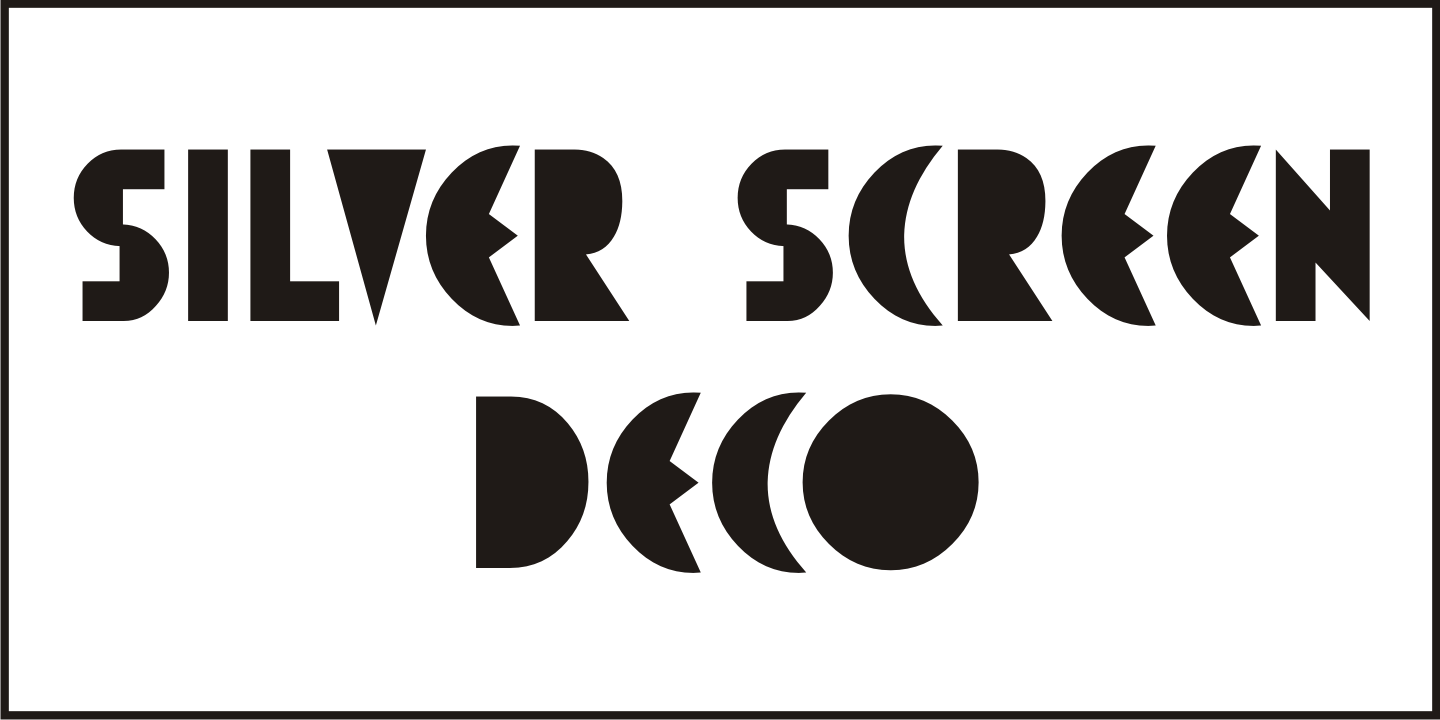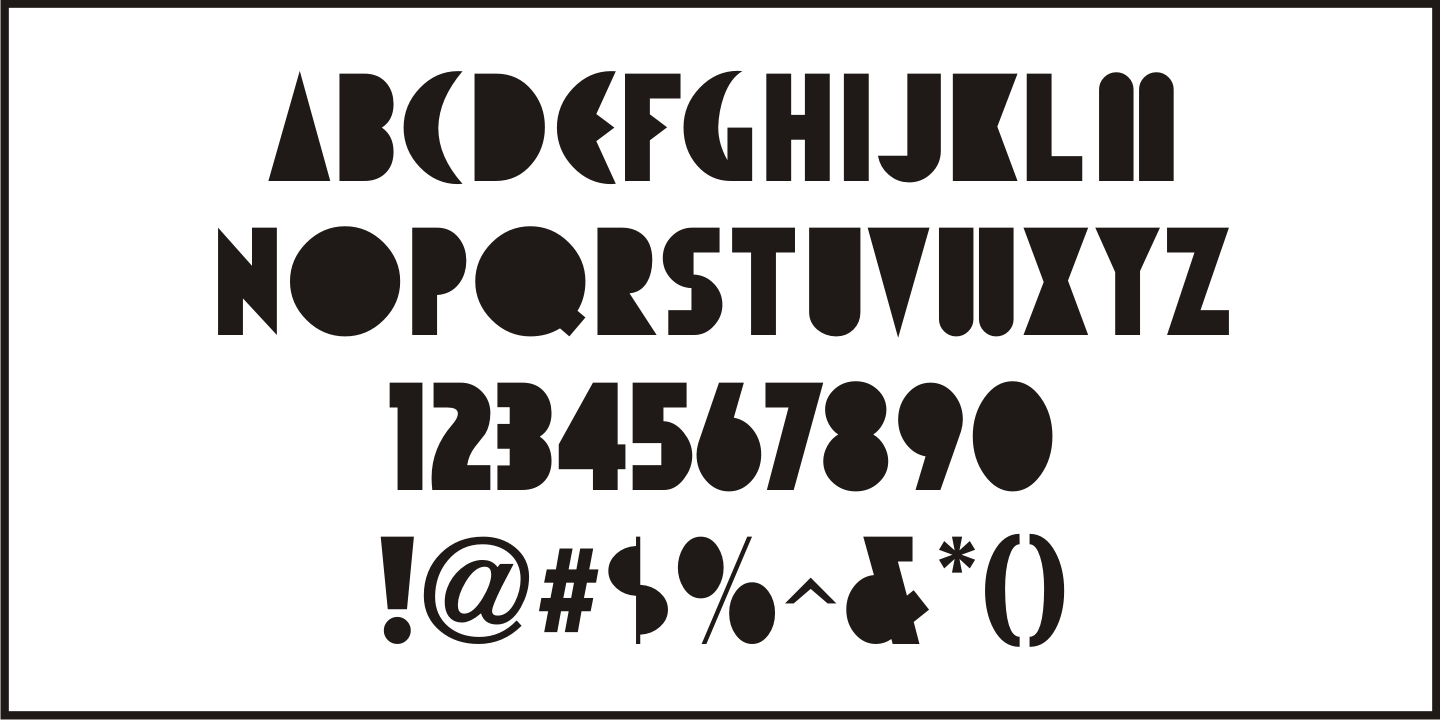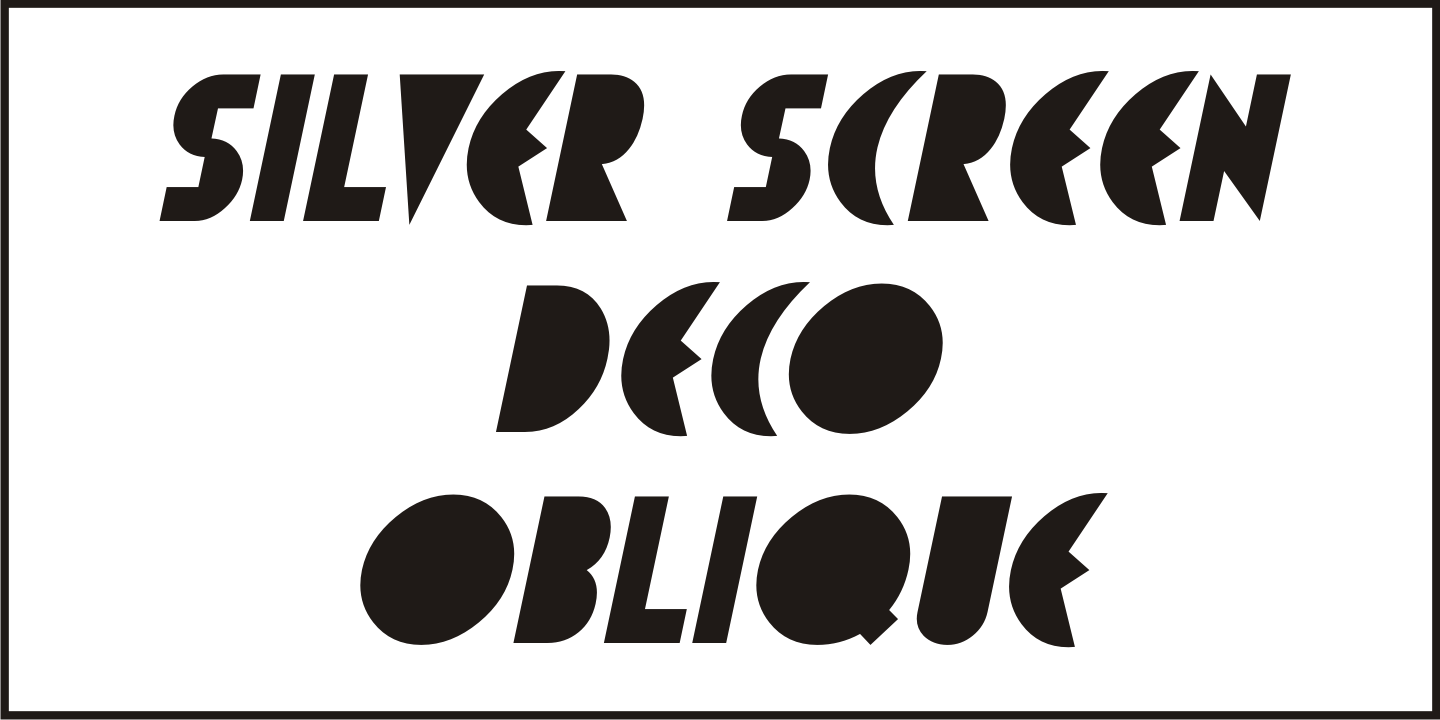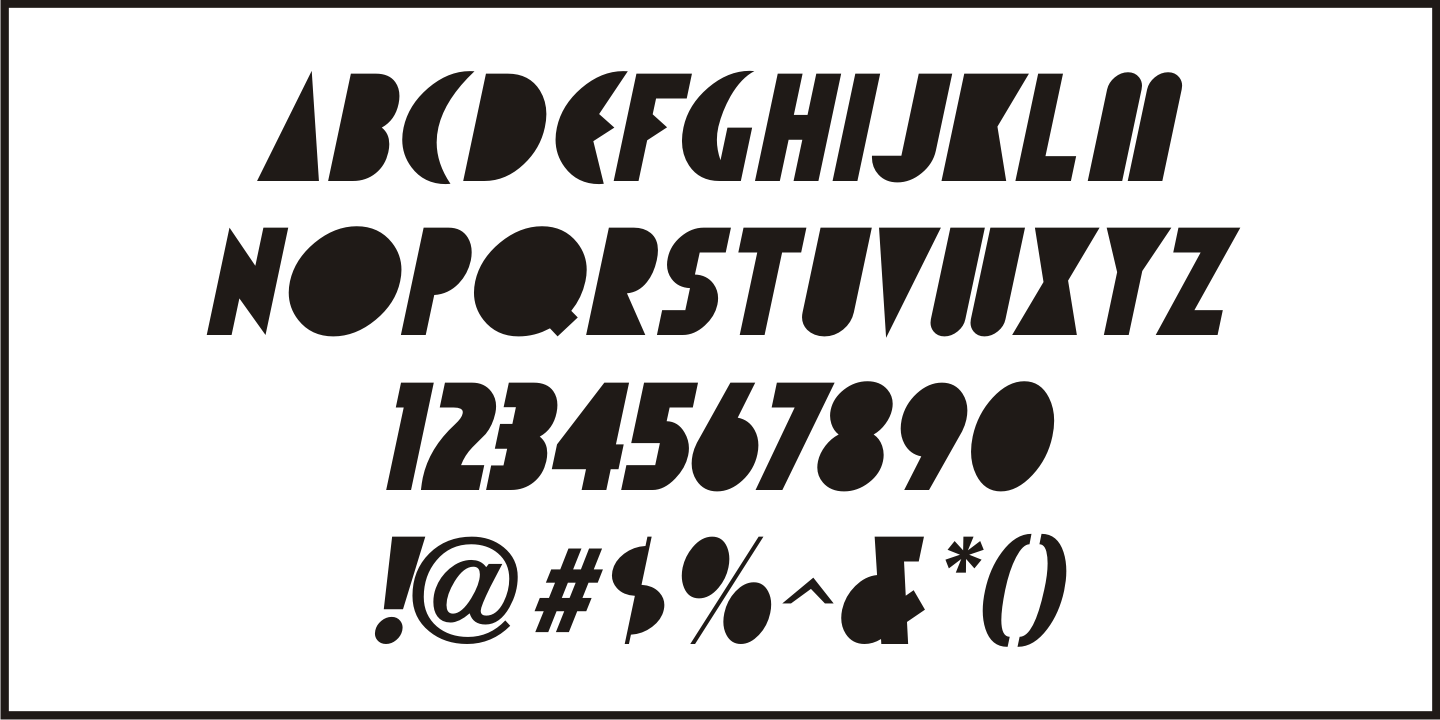
Silver Screen Deco
A 1963 image of the New View Theater in Los Angeles with its marquee's Art Deco neon lettering was the inspiration for Silver Screen Deco JNL, which is available in both regular and oblique versions.
Silver Screen Deco JNL Regular by Jeff Levine Fonts